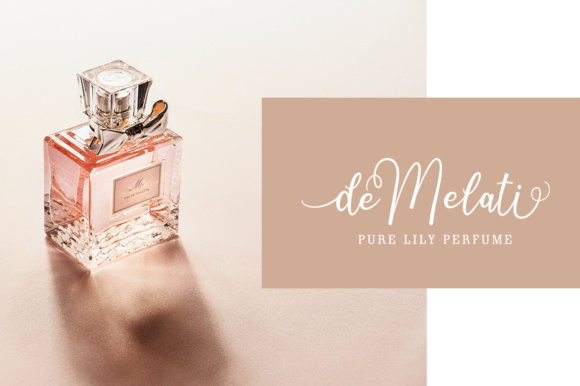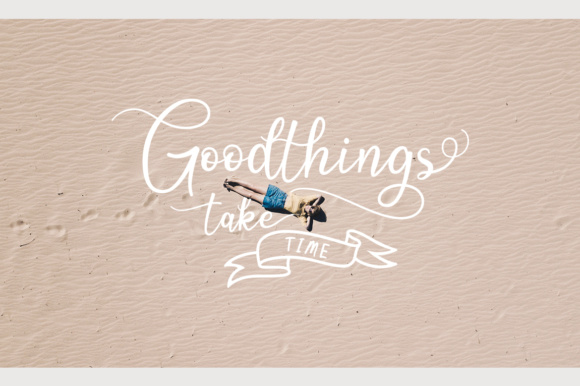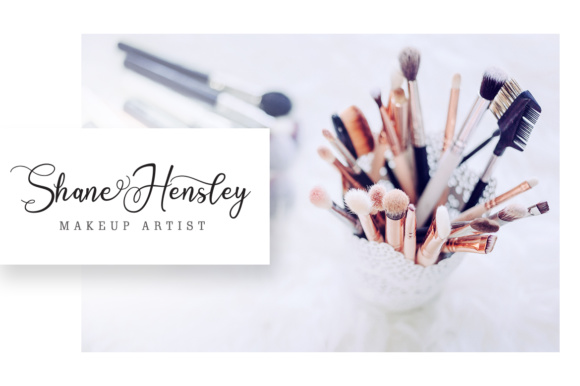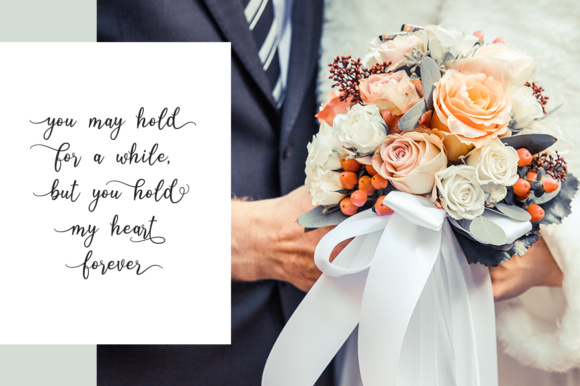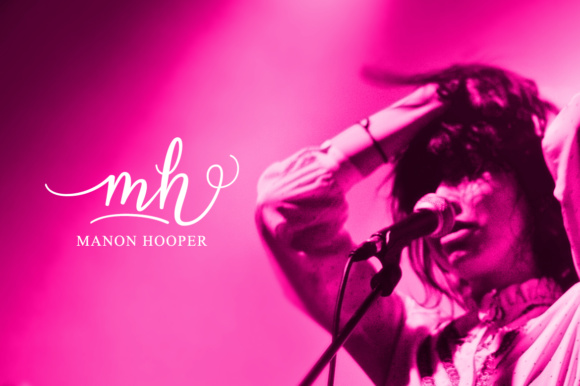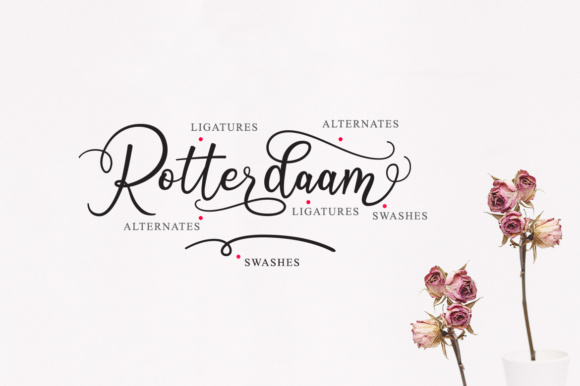
Introduction to Octhovia Duo Font
There’s nothing quite like the feeling of finally finding the perfect font for a creative project. It’s like stumbling upon a hidden treasure that brings everything together. For designers, the search for that elusive font can be a long and arduous one. But what if I told you that you’ve just found a game-changing addition to your design arsenal? Enter the stunning Octhovia Duo Font, a modern calligraphy typeface duo that’s sure to elevate your creative projects to new heights.
With its sleek and sophisticated design, the Octhovia Duo Font is a high-quality resource that’s perfect for designers of all levels. Whether you’re working on a professional project or just need a design resource for a personal blog, this font is sure to impress. And the best part? It’s available for free download, making it an accessible and valuable asset for any creative project.
Key Features of Octhovia Duo Font
- High-quality font with transparent background, ideal for creative projects requiring unique design elements.
- Features a bold and elegant design, perfect for titles, headings, and other prominent text elements in your creative project.
- Includes a comprehensive character set, including uppercase and lowercase letters, numbers, and punctuation marks.
Honest Review: Octhovia Duo Font
I recently had the chance to work with the Octhovia Duo Font, and I must say it’s been a game-changer for my creative project. The high quality of the font is immediately apparent, and it’s perfect for any design that requires a touch of elegance.
One of the standout features of the Octhovia Duo Font is its versatility. It can be used in a variety of contexts, from branding and marketing materials to digital products and print publications. The transparent background option also makes it easy to work with, allowing me to layer the font over other design elements with ease.
- ✨ Versatile and suitable for a range of design contexts
- ✨ Transparent background option for easy layering
- ⚠️ Limited character set may require additional font selection for complex projects
- ⚠️ May not be suitable for very large or complex designs
Overall, I’m thoroughly impressed with the Octhovia Duo Font. Its high quality, versatility, and ease of use make it a valuable addition to any designer’s toolkit. If you’re looking for a reliable design resource, I would definitely recommend giving it a try.
The Octhovia Duo Font is perfect for a variety of creative projects, such as logos, business cards, social media graphics, posters, presentations, reports, and newsletters. It’s also a great resource for designers and non-designers alike who want to add a touch of sophistication to their designs.